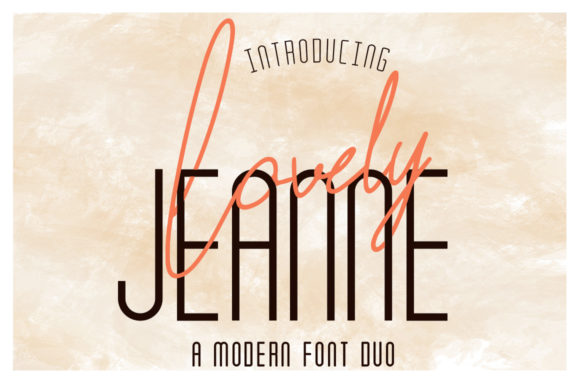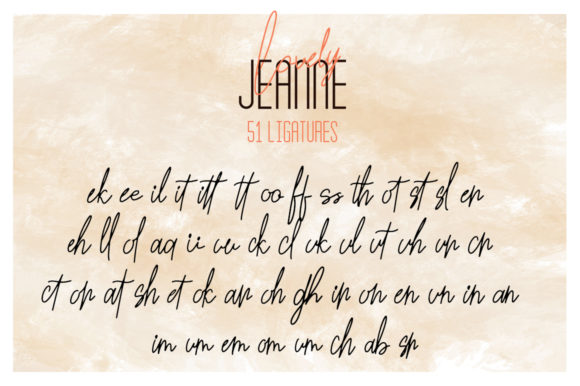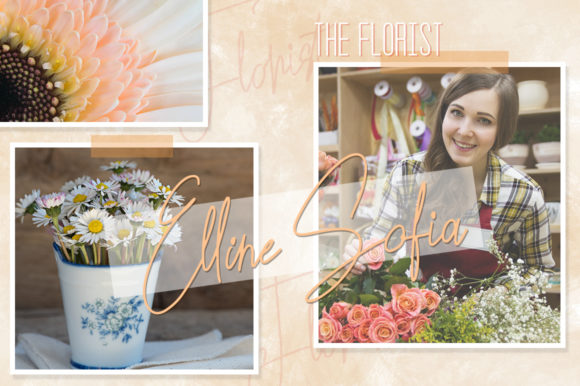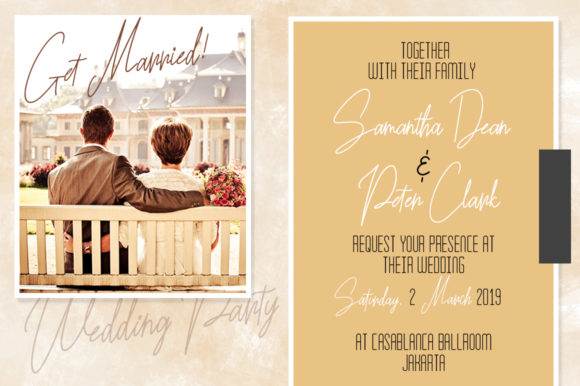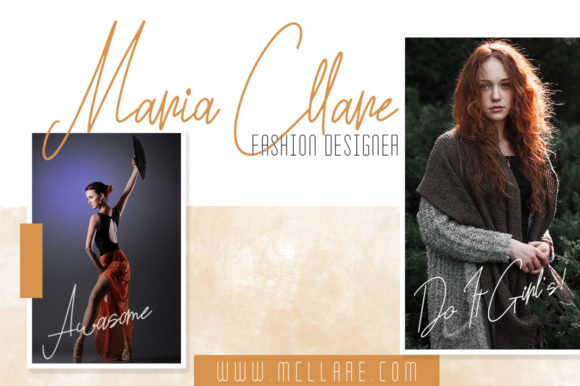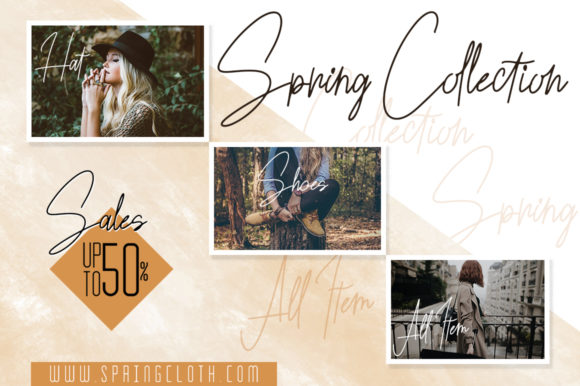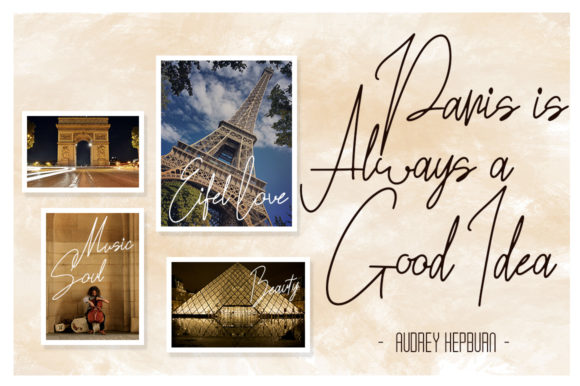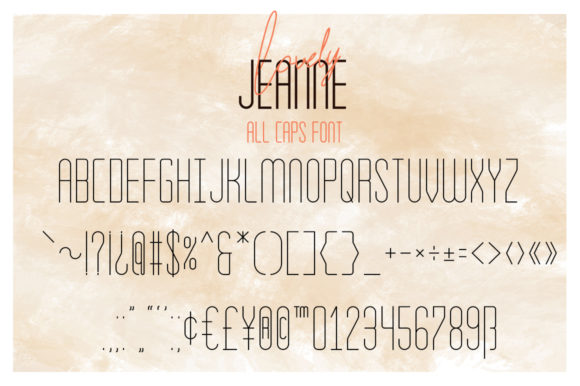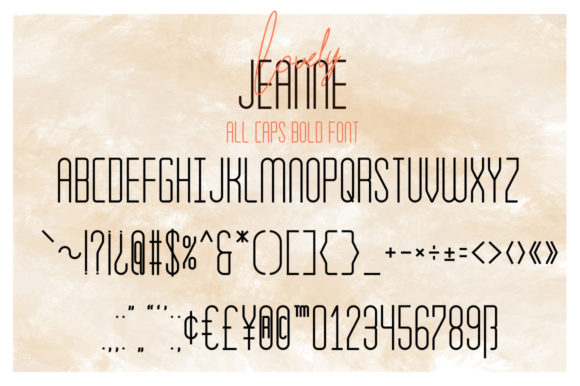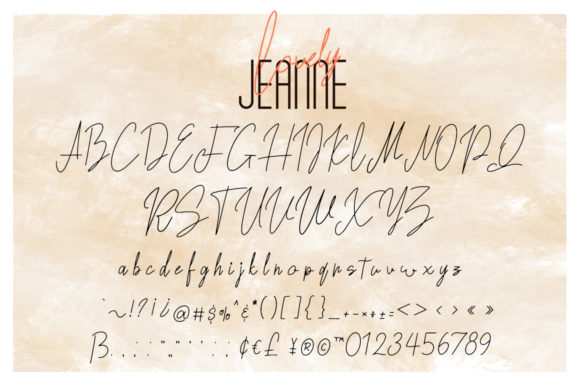
Lovely Jeanne Duo Font
About Lovely Jeanne Duo Font
Lovely Jeanne is a simple, yet beautiful font duo with classic touch. Its modern feel will turn any design project into a true stand out.